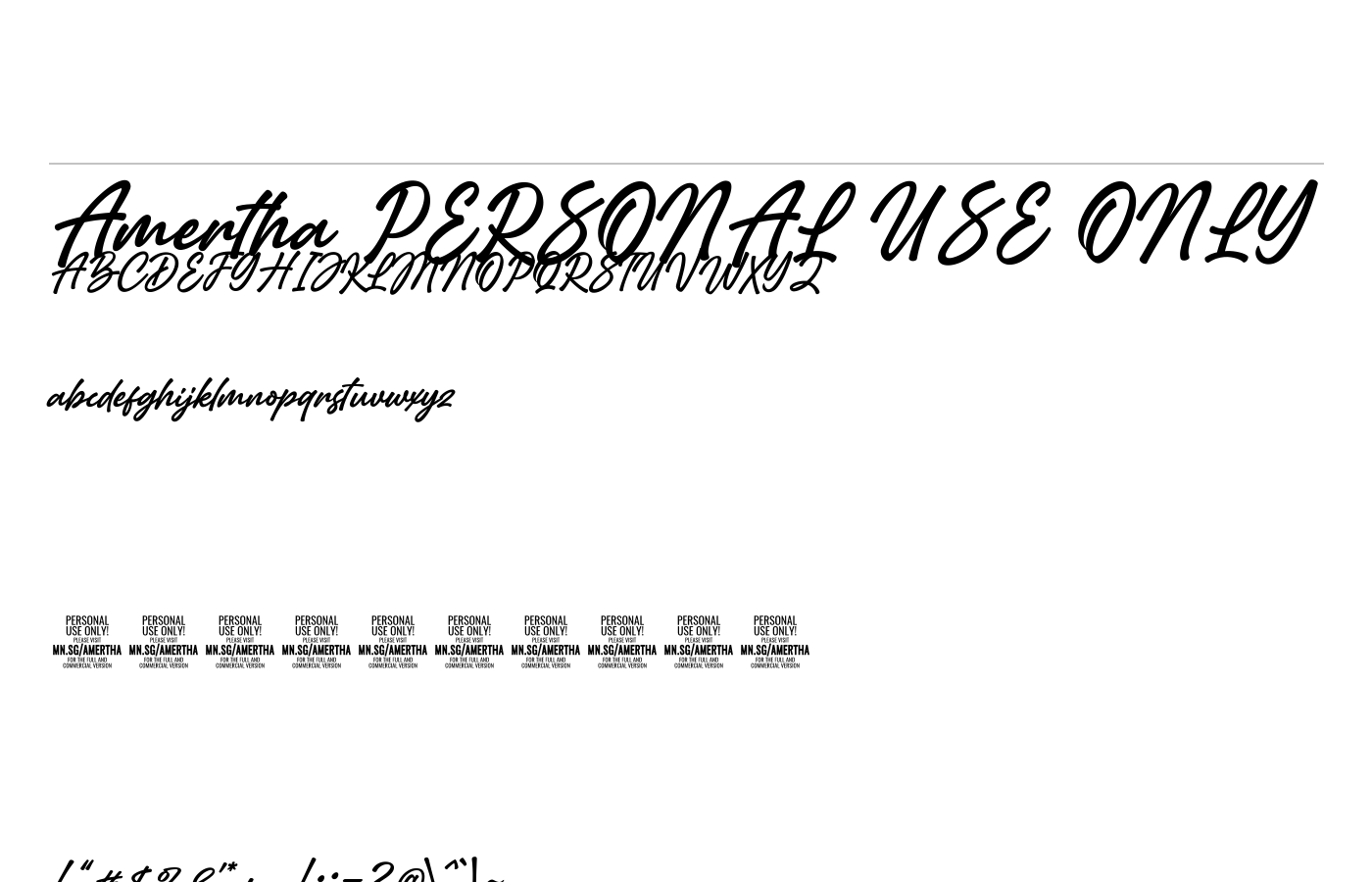
Amertha is a graceful script font with a smooth, flowing style that captures an elegant and personal touch. Its moderately high x-height and consistent stroke weight make it both legible and stylish, perfect for adding a handwritten charm to invitations, branding, or social media designs. This font works well in projects that aim to convey warmth, sophistication, and a friendly yet refined personality.
Amertha PERSONAL USE ONLY Font
About Amertha PERSONAL USE ONLY Font